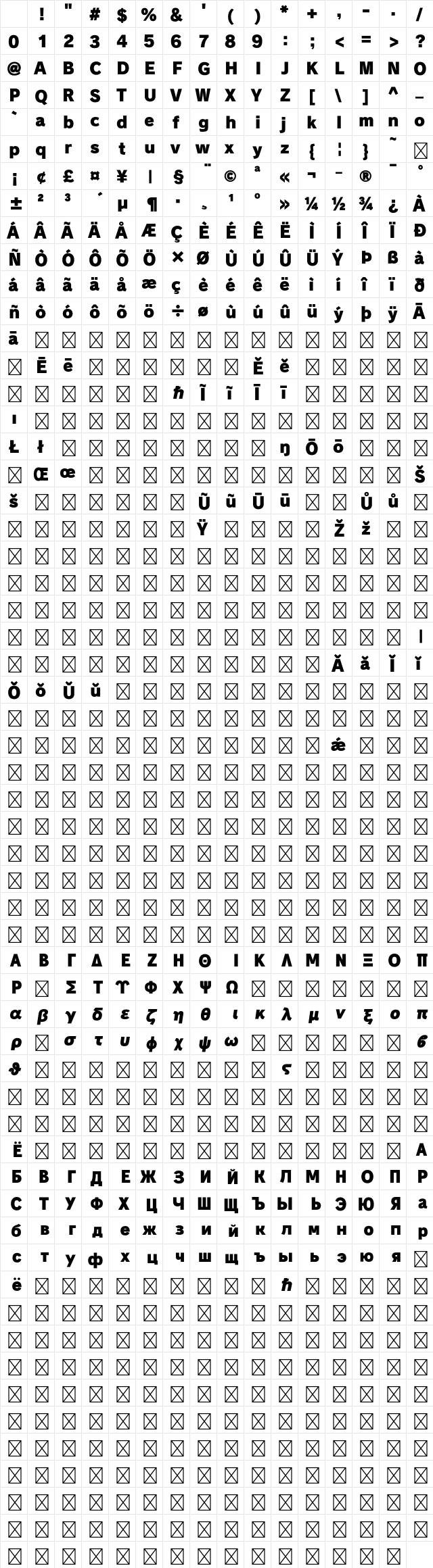
Complete FOT-RodinCattleya Pro UB glyph index. Displaying only characters natively supported by FOT-RodinCattleya Pro UB font.
FOT-RodinCattleya Pro is a composed and adaptable typeface that performs quietly and consistently across a wide range of design contexts.